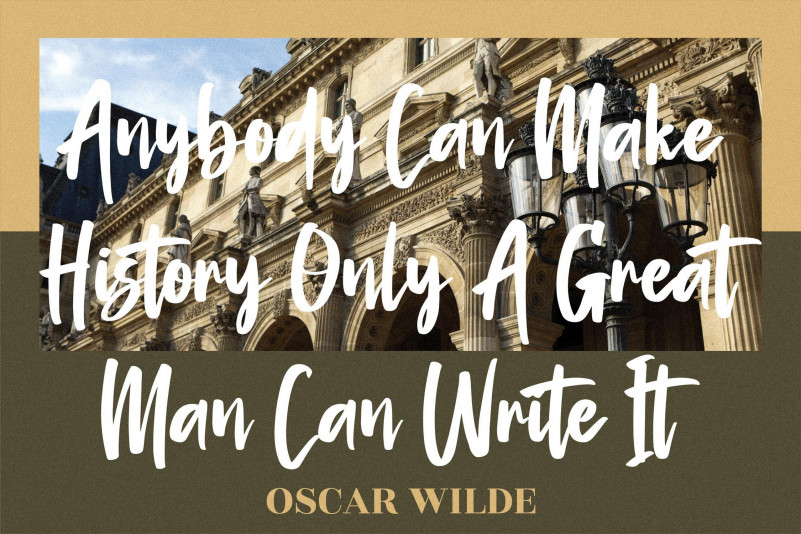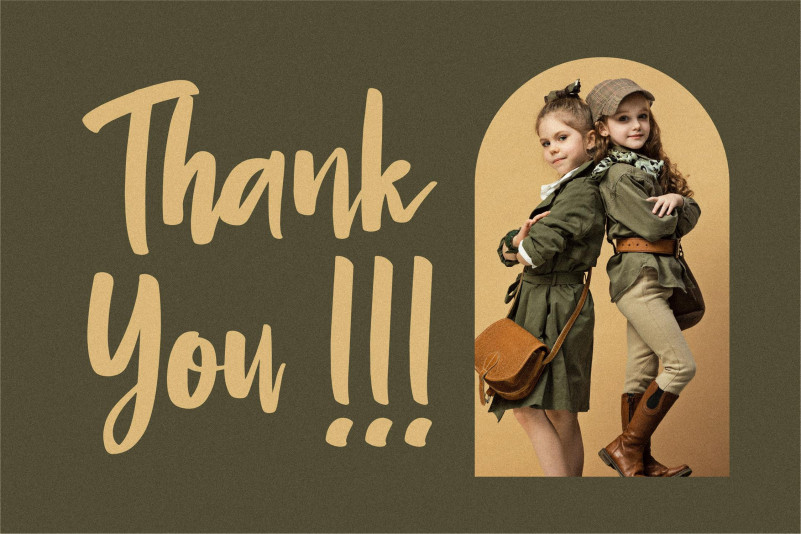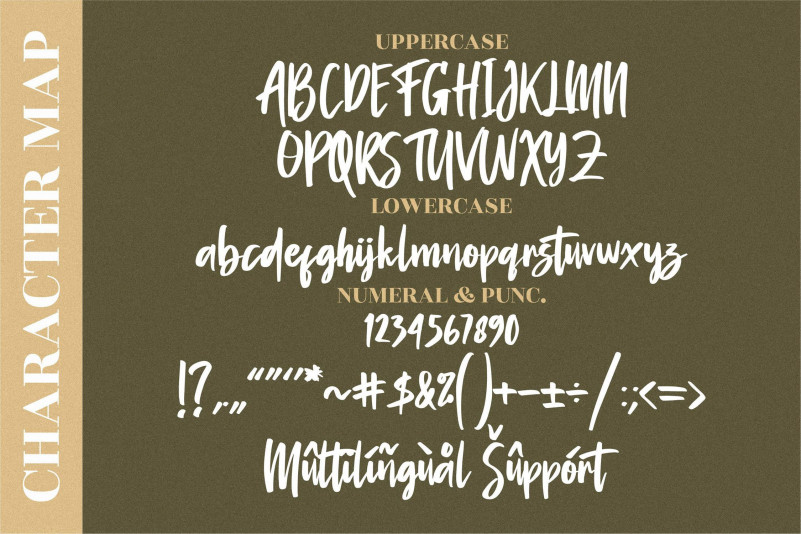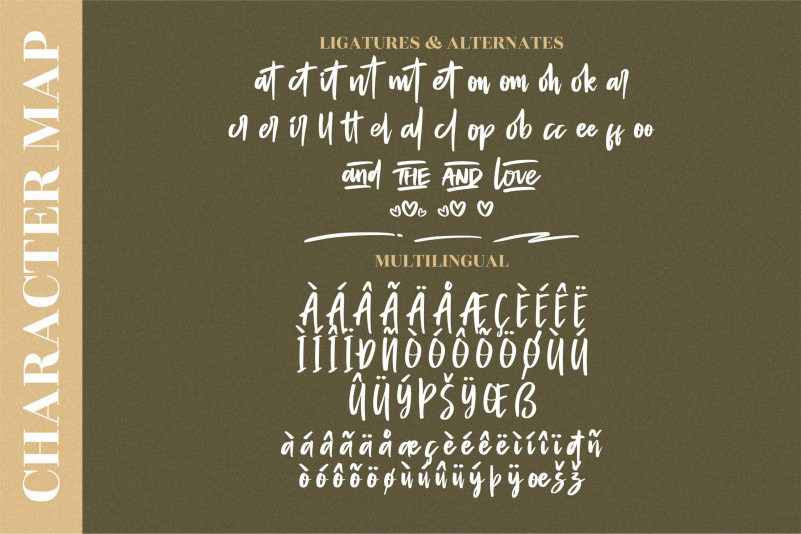
Amantaria Beauty Font
Amantaria Beauty Script Font
This is a relaxed and modern paint brushed script font. It looks lovely on every design which needs a personalized touch. It features a varying baseline, smooth lines, gorgeous glyphs and stunning alternates.